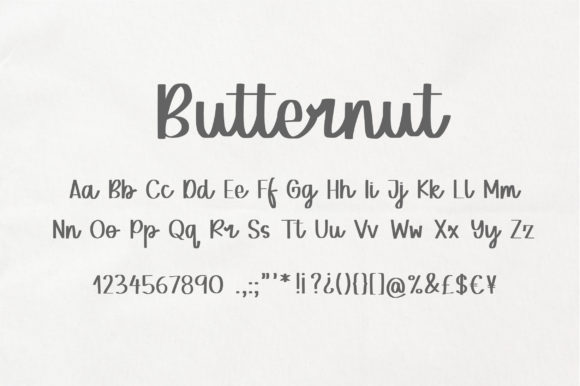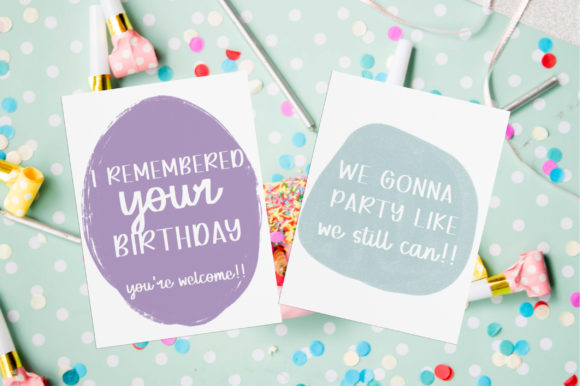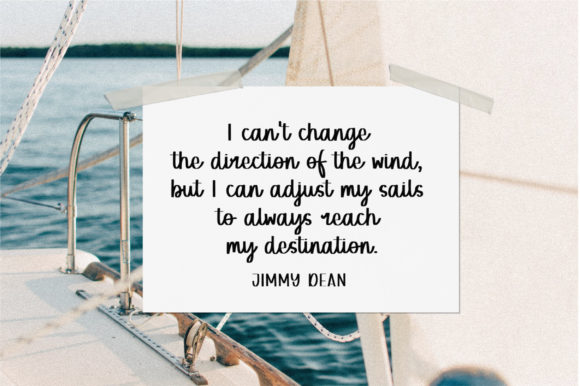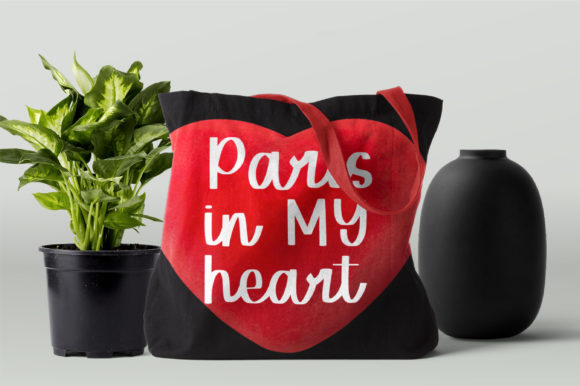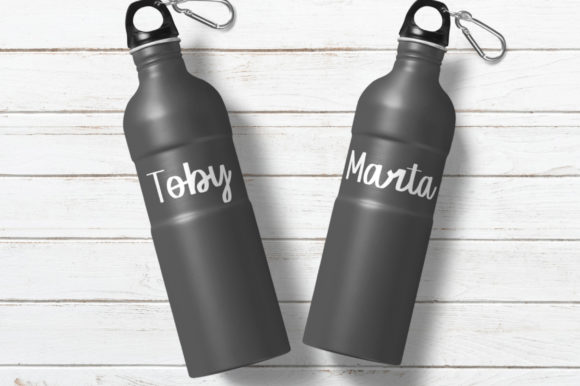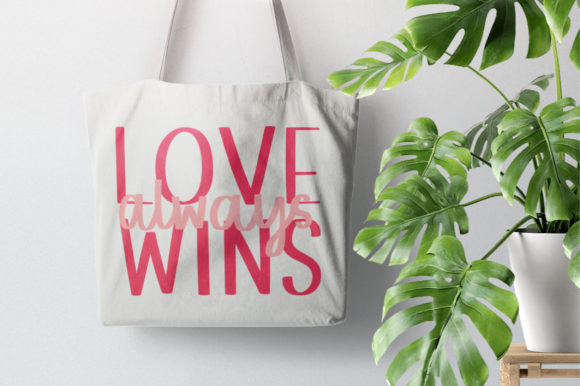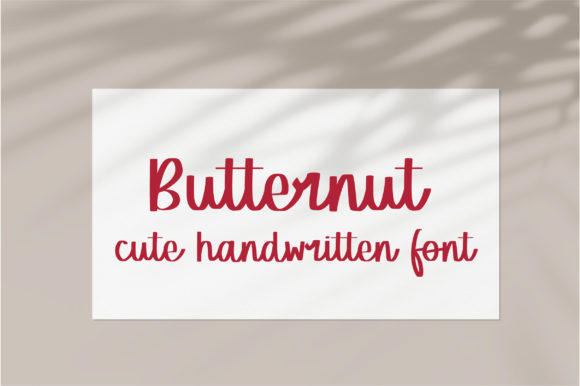
The Butternut Font: A Designer’s New Best Friend
I still remember the design project that led me to discover the Butternut font. I was working on a branding project for a cozy coffee shop, and I was struggling to find the perfect font to capture their warm and inviting atmosphere. That’s when I stumbled upon Butternut, and it instantly became my go-to font for the project. With its exquisite handwritten style, Butternut has the potential to elevate any creation, making it an incredible asset to your font library.
An Honest Review of Butternut Font
So, what makes Butternut font so special? Let’s dive into the good stuff and some minor quirks.
What I Love About Butternut Font
- ✨ Elegant handwritten style that’s perfect for branding, packaging, and marketing materials
- ✅ Extensive character set, including OpenType features and glyphs
- ✅ Works beautifully with both digital and print designs
While Butternut font is an amazing addition to any design project, there are a few minor things to keep in mind:
- 🤔 Some characters, like the uppercase letters, can be a bit ornate and may not work well for body text
- ⚠️ Limited availability of certain special characters, so be sure to check the font’s capabilities before using it for a specific project
- Experiment with OpenType features, such as ligatures and stylistic alternates, to add visual interest to your text
The Story Behind Butternut Font
The story behind Butternut font is one of passion and creativity. While the actual designer is not well-known, it’s said that they were inspired by the natural beauty of the butternut squash and sought to capture its essence in a font. The result is a beautiful, handmade font that’s perfect for a wide range of design projects.
Q: What type of projects is Butternut font best suited for?
A: Butternut font is versatile and can be used for a variety of projects, including branding, packaging, marketing materials, and more.
Q: Is Butternut font available in different weights or styles?
A: Butternut font is typically available in a single weight, but it may have stylistic alternates and OpenType features that allow for some variation.
A: Absolutely! Butternut font is perfect for personal projects, such as crafting, scrapbooking, and DIY designs.